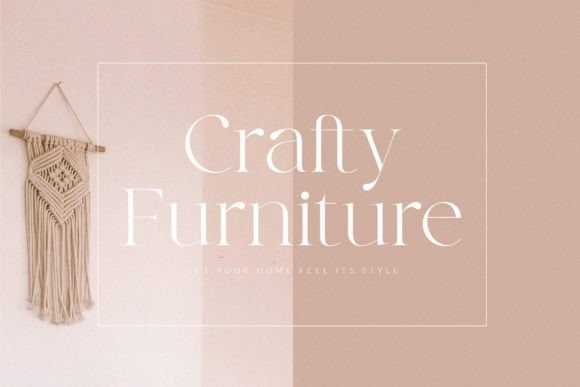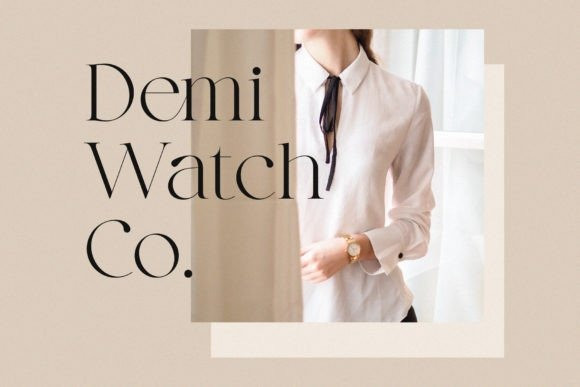
Ragilen Font
Ragilen Font, is a New Ligatture Serif Typeface. Ragilen has smooth edges, so this font gives the style a modern and distinctive feel with a shape that is accompanied by a ligature that makes the appearance of the letter unique and elegant. Ragilen Font is the perfect choice for those of you who are looking for a clean, modern, minimalist, elegant and beautiful design style. Suitable for almost any graphic design such as logos, branding materials, business cards, gift cards, t-shirts, covers, thumbnails, prints, posters, photography, quotes .etc